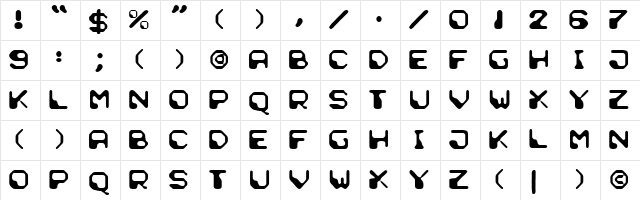
Demun Lotion Normal Free Font
Demun Lotion Normal
Design Context for Demun Lotion
Demun Lotion is a composed and adaptable typeface that performs quietly and consistently across a wide range of design contexts.